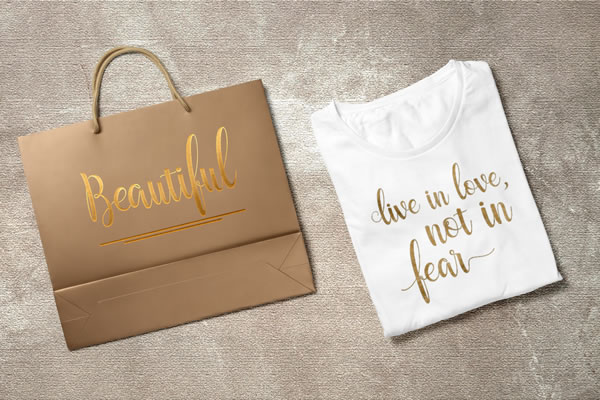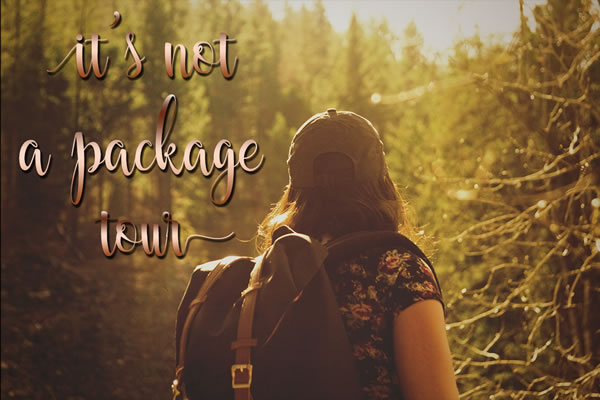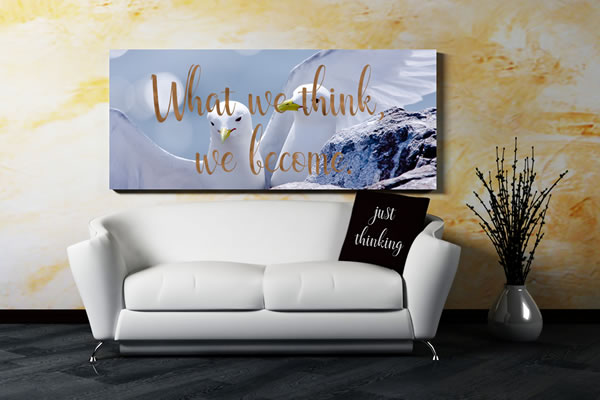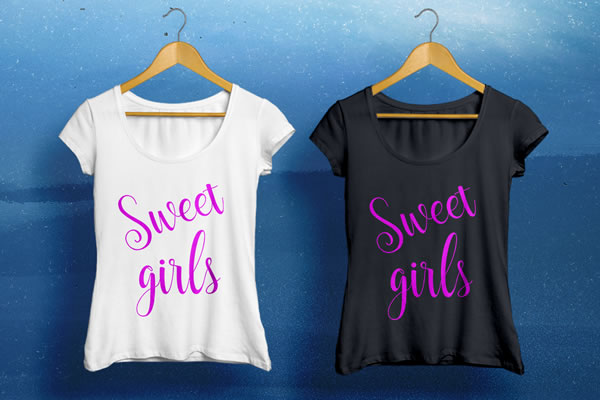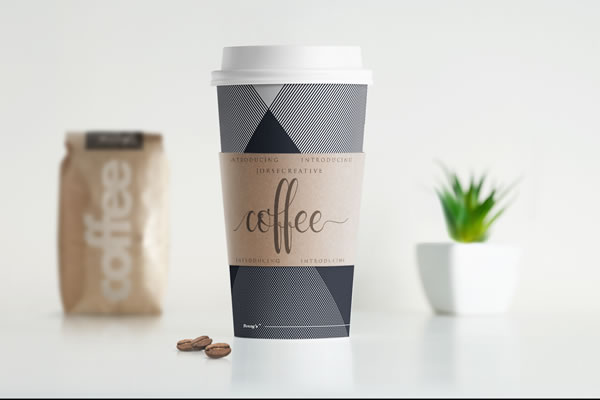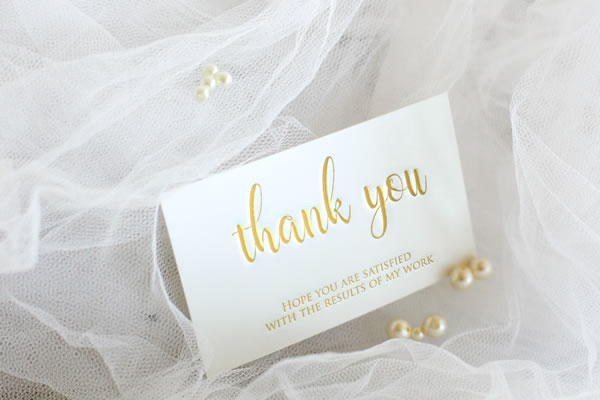
Introducing Beatrice Font: Adding a Touch of Warmth and Personality to Your Designs
In the world of typography, fonts play a crucial role in conveying the tone and personality of a design. For designers and crafters looking to add a touch of warmth and personality to their projects, the Beatrice font is an excellent choice. This beautiful handwritten font features a dancing baseline that gives text a smooth flow, making it perfect for a wide range of design applications.
What Makes Beatrice Font Special?
The Beatrice font is designed to bring a sense of elegance and sophistication to your designs. Its unique features include:
- Contextual Alternates: This feature allows the font to adjust its letterforms based on the context in which they are used, creating a more natural and organic look.
- Standard Ligatures: Ligatures are special character combinations that replace standard character pairs, resulting in a more fluid and connected text.
- Stylistic Alternates: This feature provides alternative character forms that can be used to add variety and visual interest to your text.
- Stylistic Sets: Stylistic sets allow you to access multiple styles and variations of the font, giving you greater flexibility and creative control.
The Benefits of Using Beatrice Font
The Beatrice font offers a range of benefits for designers and crafters, including:
- Unique and Personalized Look: The dancing baseline and elegant letterforms of the Beatrice font give text a smooth flow and a warm, personal feeling.
- Versatility: The font’s features, such as contextual alternates and stylistic sets, make it suitable for a wide range of design applications, from branding and advertising to packaging and digital media.
How to Use Beatrice Font in Your Designs
Using the Beatrice font in your designs is easy. Here are a few tips to get you started:
- Pair it with Other Fonts: The Beatrice font works well with a range of other fonts, so don’t be afraid to experiment with different pairings to find the perfect look for your design.
- Experiment with Colors and Textures: The Beatrice font looks great in a range of colors and textures, so try experimenting with different combinations to add depth and interest to your design.
- Use it for Headings and Body Text: The Beatrice font is suitable for both headings and body text, making it a great choice for a wide range of design applications.
In conclusion, the Beatrice font is a beautiful and versatile handwritten font that is perfect for designers and crafters looking to add a touch of warmth and personality to their designs. With its unique features, such as contextual alternates and stylistic sets, and its ease of use, the Beatrice font is a great choice for a wide range of design applications. Whether you’re looking to create a personalized look for your brand or simply want to add some elegance and sophistication to your designs, the Beatrice font is an excellent choice.